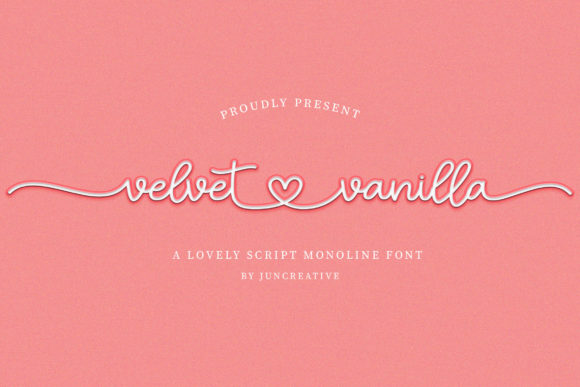
Behold, Velvet Vanilla Font – A Timeless Masterpiece for Your Creative Endeavors!
In a digital world saturated with uniformity, Velvet Vanilla Font stands as a refreshing breath of individuality, beckoning you to embrace the allure of handwritten elegance. This captivating script font, hailing from the creative genius of Juncreative, exudes both charm and sophistication, making it an irresistible choice for those seeking a touch of timeless beauty in their designs.
With its graceful curves, smooth lines, and stunning alternates, Velvet Vanilla Font possesses an inherent versatility that seamlessly adapts to a myriad of creative projects. Whether you seek to craft heartfelt wedding invitations, express gratitude with personalized thank-you cards, or add a touch of enchantment to quotes and greeting cards, this font will elevate your designs to new heights of elegance.
But Velvet Vanilla's allure extends far beyond personal projects. Its inherent professionalism makes it an ideal choice for logos, business cards, and any design element that demands a refined and polished look. Its ability to effortlessly convey a sense of trustworthiness and reliability makes it a perfect fit for businesses seeking to establish a strong and lasting connection with their clientele.
The Velvet Vanilla Font is meticulously crafted to provide designers with unparalleled creative freedom. Its PUA encoding allows for effortless access to a treasure trove of glyphs and swashes, empowering you to infuse your designs with intricate details and stunning flourishes. The font's varying baseline further enhances its versatility, allowing you to create dynamic and visually captivating compositions that are sure to captivate your audience.
Envision your wedding invitations adorned with the delicate strokes of Velvet Vanilla, conveying the heartfelt emotions of your special day with unmatched grace. Picture thank-you cards imbued with a touch of elegance, expressing your gratitude with a sophistication that leaves a lasting impression. Let your quotes and greeting cards radiate warmth and charm, as the Velvet Vanilla Font transforms your words into works of art.
Businesses too can harness the power of Velvet Vanilla to create logos that exude professionalism and leave an indelible mark on their clientele. Business cards crafted with this font convey a sense of trustworthiness and reliability, fostering a strong foundation for lasting business relationships. From marketing materials to social media posts, Velvet Vanilla Font serves as a versatile tool that elevates your brand's image, attracting customers with its timeless appeal.
Immerse yourself in the world of Velvet Vanilla Font and unleash your creativity. Let its elegance grace your designs, its versatility fuel your imagination, and its beauty captivate the hearts of your audience. Embrace the charm of handwritten elegance and elevate your projects to new heights of sophistication.